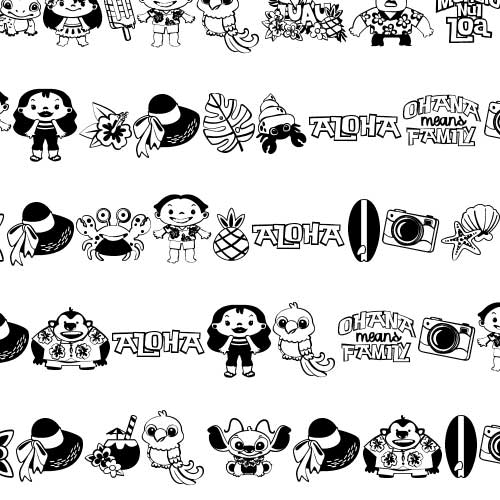
DB Stitched - DB
This adorable doodlebat font features 26 tropical characters and images perfect for cards, crafts, gifts, planner stickers, scrap book pages, classrooms and more!